28 Fonts Similar to Irongate for Perfect Classic Typography
When it comes to creating timeless designs, typography can glue the overall aesthetic. Fonts similar to Irongate are particularly effective in achieving a classic design. If you’re looking for the same stylistic impact with more unique attributes, let’s take a look at our collection!
Dissecting the Irongate Font
The Irongate font is an all-caps decorative typeface known for its bold and vintage design. The font exhibits sharp, angular edges, reflecting the influence of the Gothic period. The font’s overall appearance is dramatic, featuring tall, and narrow characters.
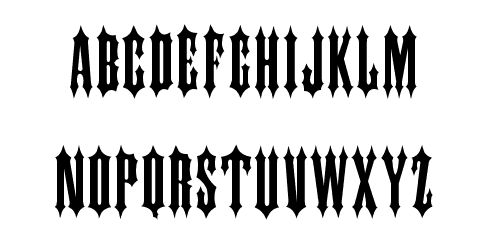
This font includes pointy vertical serifs–just like an iron gate, providing unique uniformity across all glyphs. It is classified as semi-bold and has a condensed width, conveying a strong vertical emphasis.
Inspirations of Fonts Similar to Irongate
After understanding the Irongate font’s characteristics, we can mix and match these styles from another perspective. Let’s meet our collection, which resembles Irongate font!
1. Willson Wells
Just like Irongate, Willson Wells is also influenced by Gothic typography. This font also features pointy serifs, but not as pointy as Irongate.
2. Angel Rhapsody
Angel Rhapsody is also a decorative blackletter font with condensed letters and pointy serifs. But this one only points downward.
3. Livingstone
Livingstone is a blackletter that adds flowy lines. Additionally, it has contrasting thick and thin lines for harmony.
4. Agise Rujdi
Agise Rujdi is almost a calligraphic blackletter with more sophisticated strokes. The font features detailed lines and unique letterforms.
5. Angel Wish
The ornate Angel Wish combines iron gate-like aesthetics with flowy strokes. It has a condensed typeface and features center serifs.
6. Fancy Quisley
Although stylish, Fancy Qunsley always exudes subtle dread and Western vibes. This font appears rigid, just like the original blackletter.
7. Super Byzantine
Super Byzantine’s strokes are more sophisticated. It has the same classical feel as Irongate but with smoother decorations.
8. Aurel Shine
As fonts similar to Irongate, Aurel Shine is also condensed and appears vertical. But, instead of pointy ends, this font chooses a parallel look.
9. Avalen Rekas
While still within the blackletter typeface, Avalen Rekas includes stylistic Javanese carving elements, introducing pointy details and regal aesthetics.
10. Yugitoy
Yugitoy brings back the classic Gothic style with sharper cuts. With its stylish letterforms, each letter serves as an eye candy to your design.
11. Miztar
Blackletters are also influenced by Victorian typography, just like Miztar. This font ditches the rigid strokes and uses thicker, more fluid edges.
12. Prastico
Instead of using thick lines, Prastico creates classical vibes with two strokes. That makes this font look distinct and festive.
13. Rafiquell
Despite the spiky aesthetic, Rafiquel has the quality to be a font similar to Irongate. It has similar letterforms with its little side spike.
14. Rogfus Sejatty
Among our blackletters, Rogfus Sejatty embraces its boldness. As a display font, it has a more pronounced appearance than the other.
15. Bahisy
While Irongate creates uniformity using its spikes, Bahisy takes that inspiration and creates more spikes. This font elevates the decorated blackletter style to another level.
16. Kingston Williams
Other blackletter fonts are making ornaments around the letters, but Kingston Williams decorated the inside. This font utilizes a dry-brush font style as the base.
17. The White Knight
The White Knight is the perfect depiction of a calligraphic blackletter. This font has beautiful flowy lines combined with brush strokes.
18. Hewina
Hewina is a unique Victorian font with a stunning appearance. Just like Irongate, this font also captures the creepy and dark aesthetic very well.
19. Gokil Nova
If you’re looking for a professional look, Gokil Nova is the font you need. Make sure to use its swashes to elevate your classical designs.
20. Hellios Gothic
Just like Irongate, Hallios Gothic is also an all-caps font. Although this font added its details on the corners instead of the top and bottom parts.
21. Ambrosia
While maximizing its decorativeness, Ambrosia also included tapered corners. Without the bells and whistles, Ambrosia resembles Irongate’s core shape.
22. Wazintte
Wazintte is a Victorian-styled font with a loud appearance. Looking at this font brings you back to the old circus poster.
23. Kevin Ghal
While others highlight the rough and spooky aesthetics, Kevin Ghal opts for a more curvy look. Of course, while still retaining the sophisticated Victorian root.